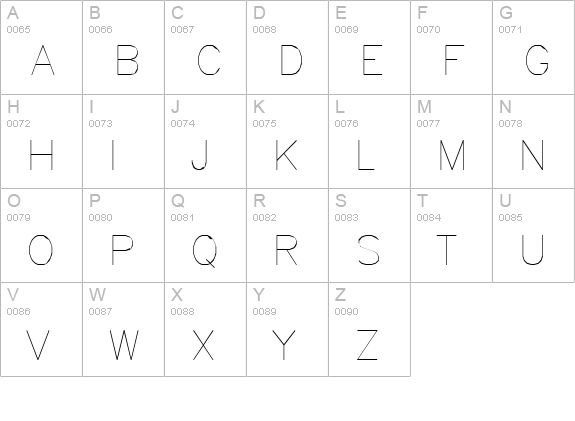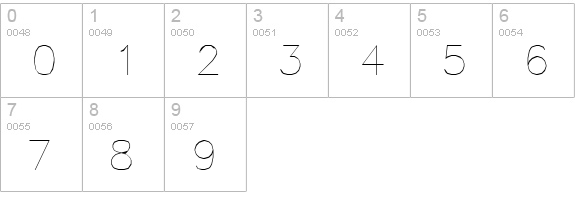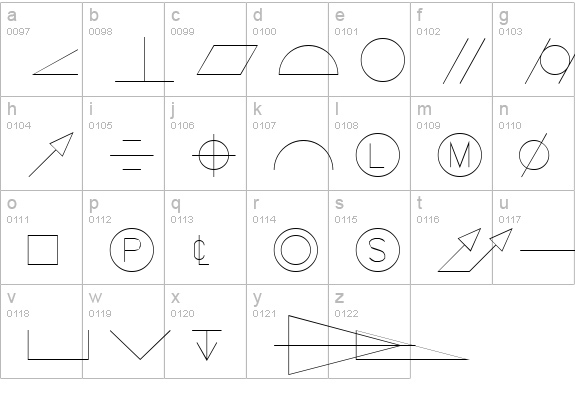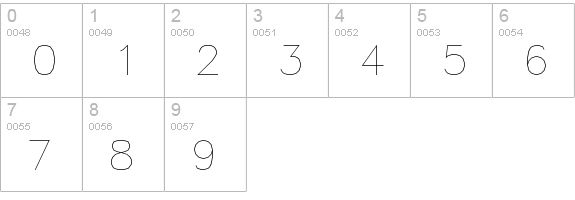
GDT Font Details
Introducing GDT font - a modern and versatile typeface that perfectly balances elegance and readability. With its sleek lines and stylish curves, GDT is suitable for a wide range of design projects, from branding to editorial layouts. This font exudes a sense of sophistication and professionalism, making it ideal for both digital and print applications. The best part? GDT font is completely free to download at FontsMarket.com, making it accessible to designers and creatives of all levels. Whether you're working on a personal project or a client commission, GDT font is sure to elevate your design with its timeless appeal. Don't miss out on the opportunity to add this stunning typeface to your font collection today!